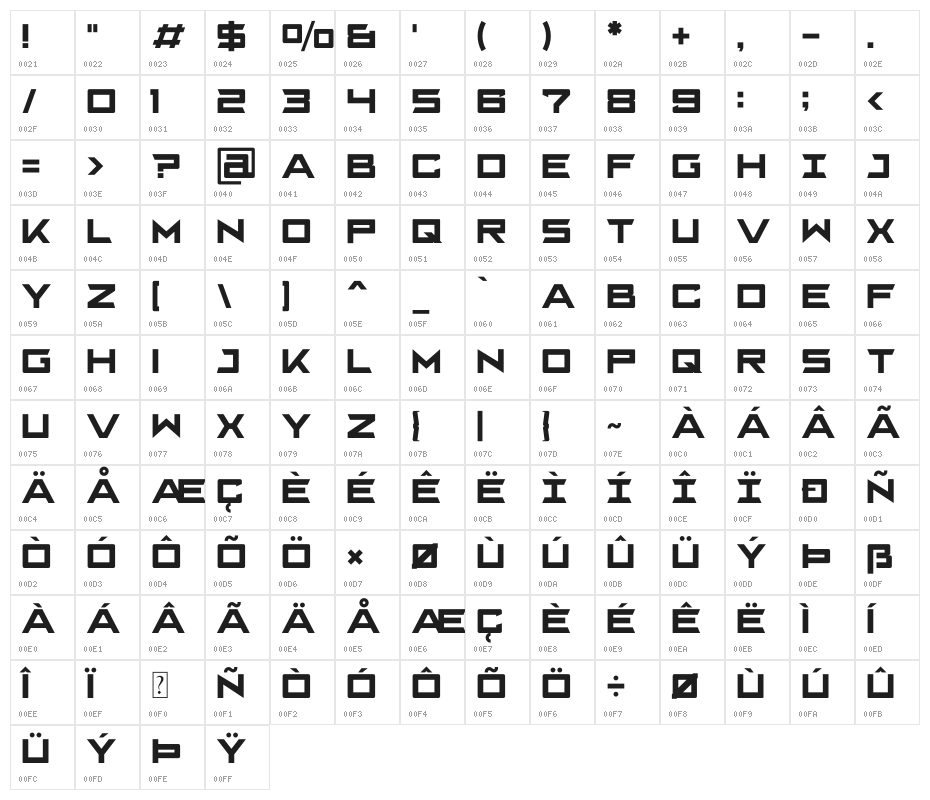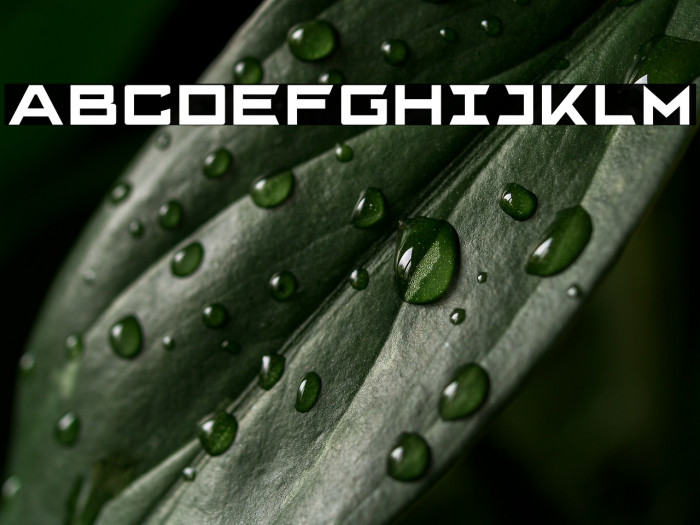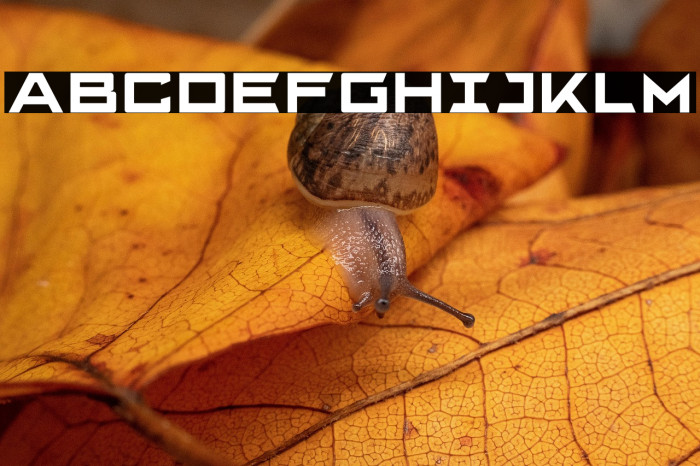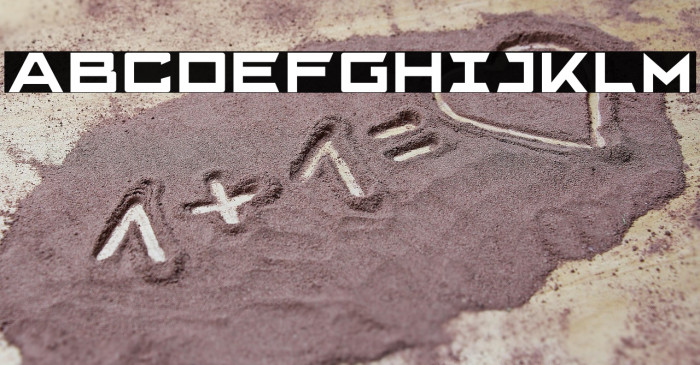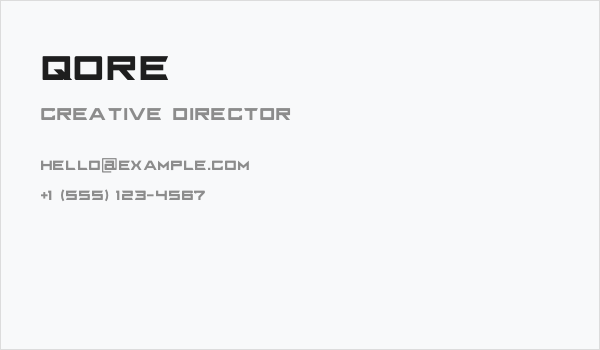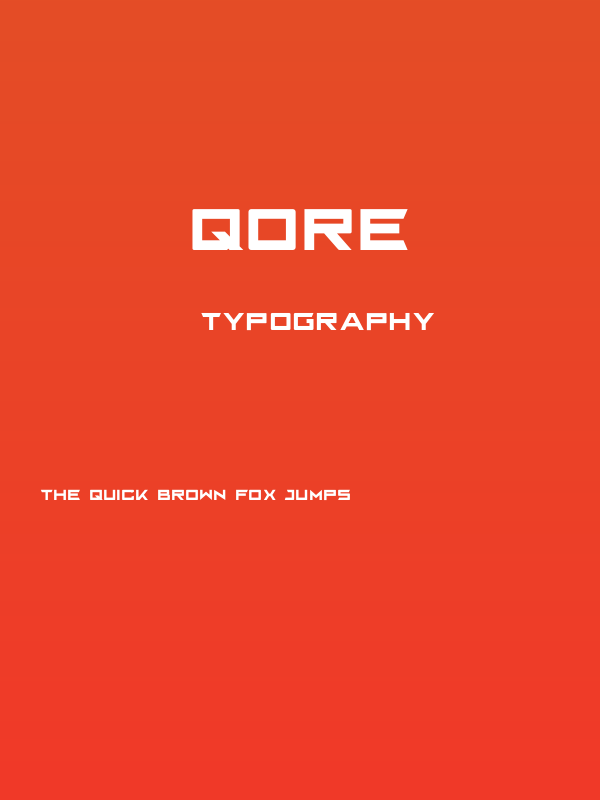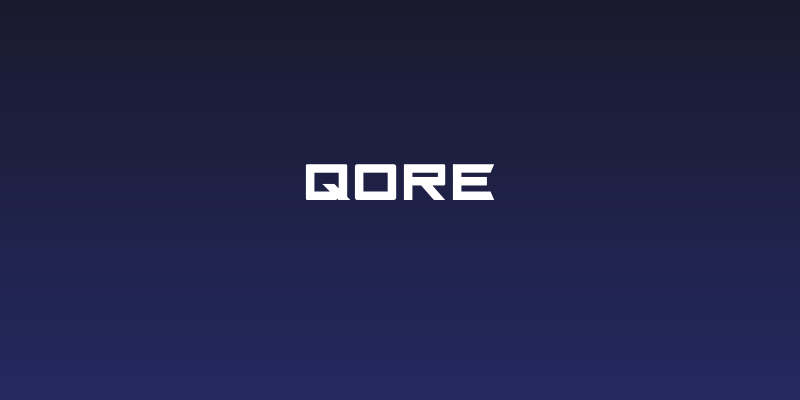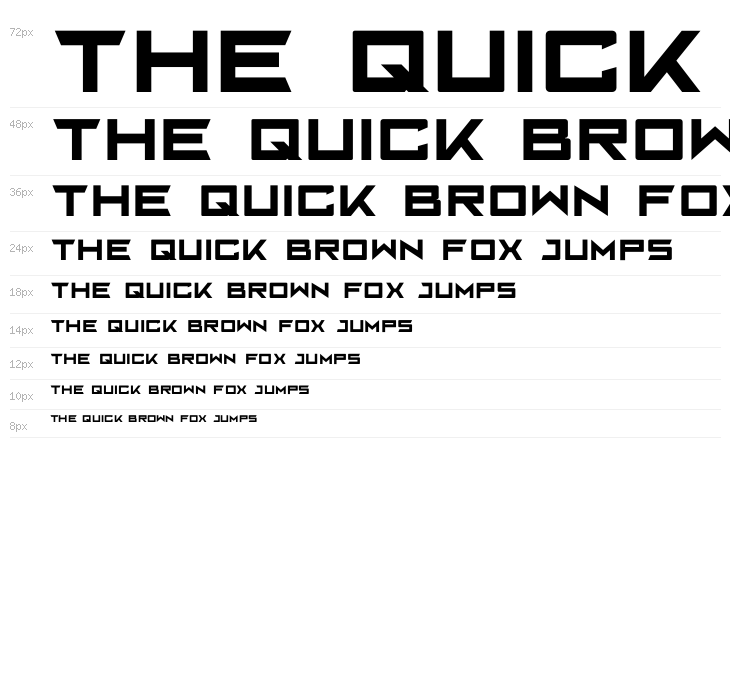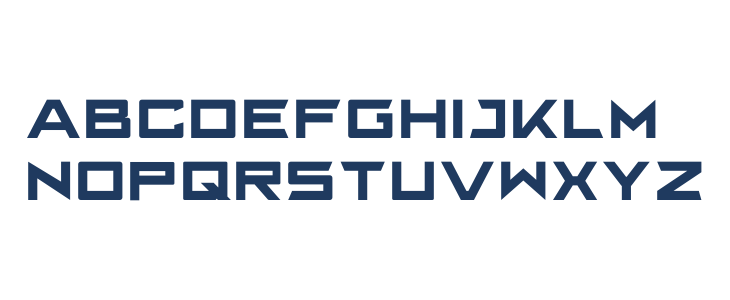
Qore Font
Qore Description
This font features a bold, geometric design with sharp angles and a futuristic aesthetic. The uppercase letters are uniform in height, creating a cohesive and structured appearance. The lowercase letters maintain the same angular style, offering a consistent look across all characters. Numbers are designed with the same boldness and geometric precision, ensuring readability and impact. Special characters are crafted to match the overall style, providing a complete and versatile character set. The font's strong presence makes it ideal for projects that require a modern and assertive look.
| Proposed Projects | Ideal for technology branding, sci-fi posters, video game titles, and modern advertising. |